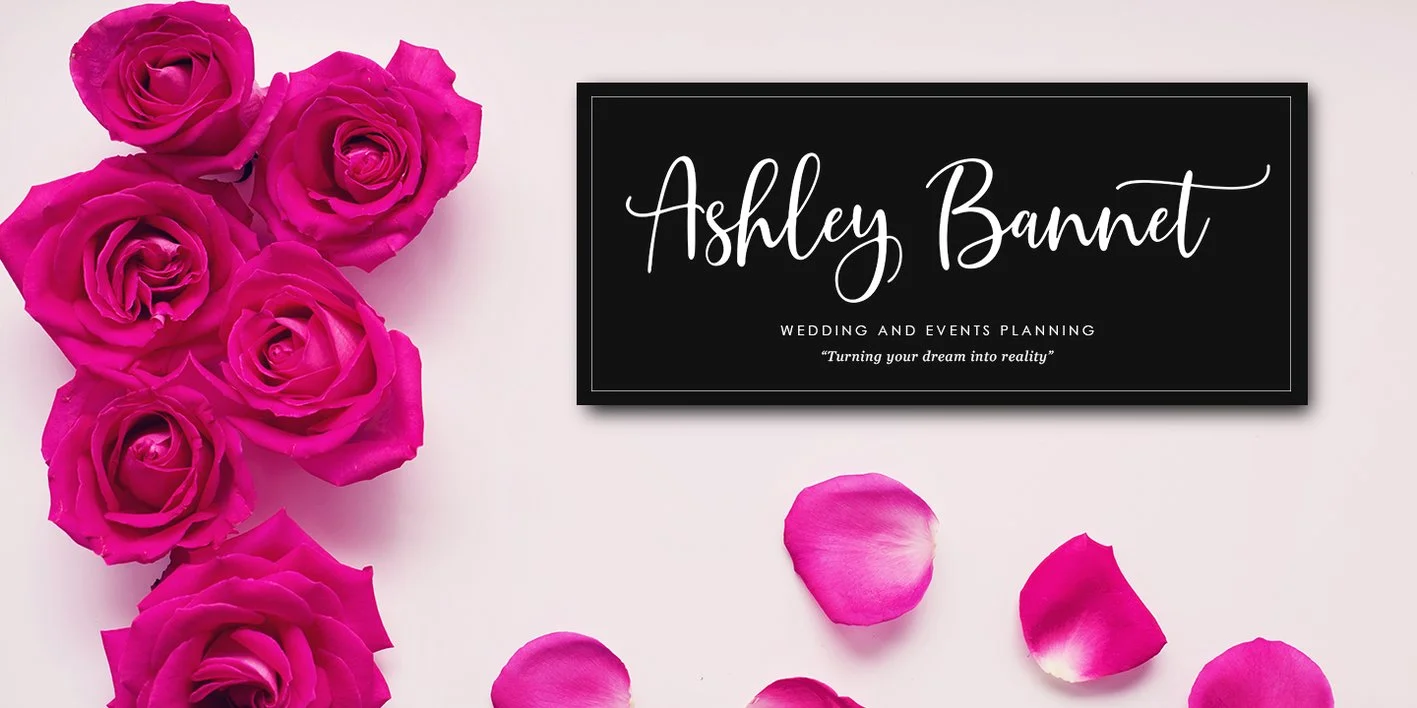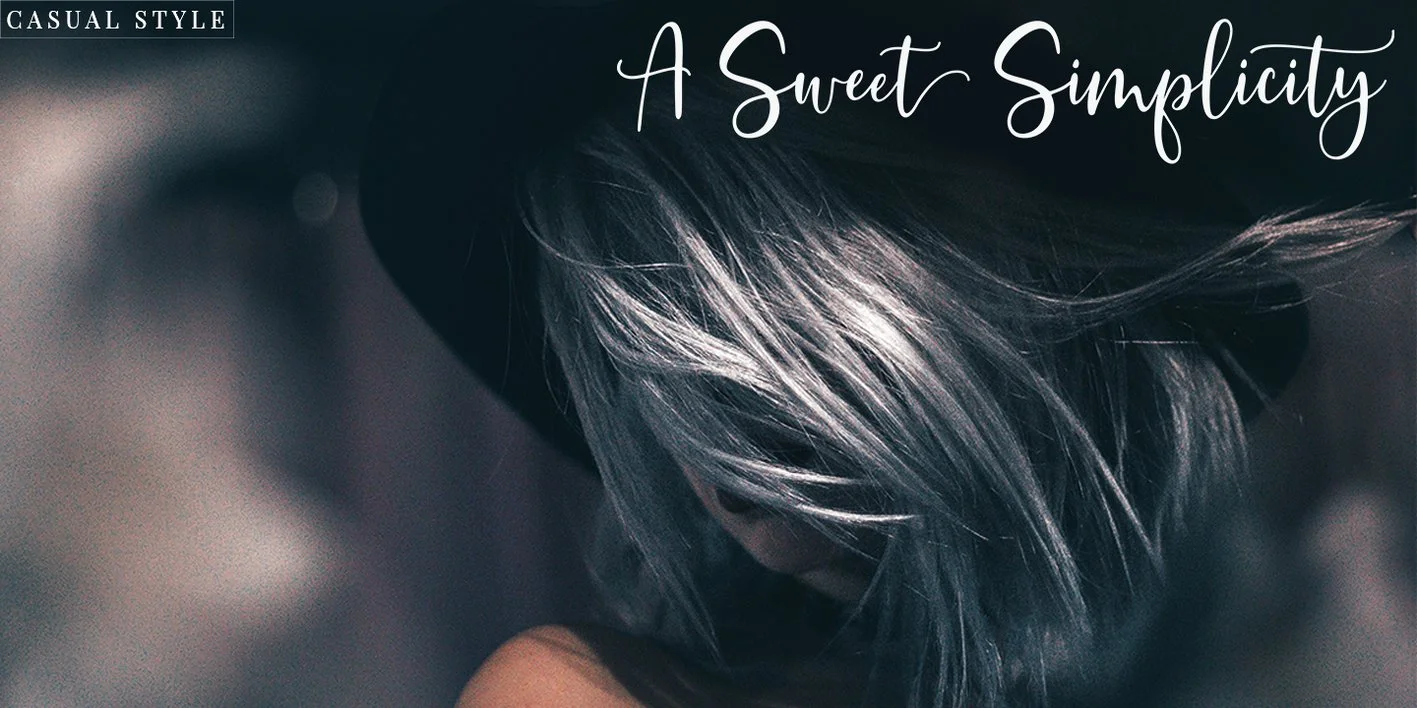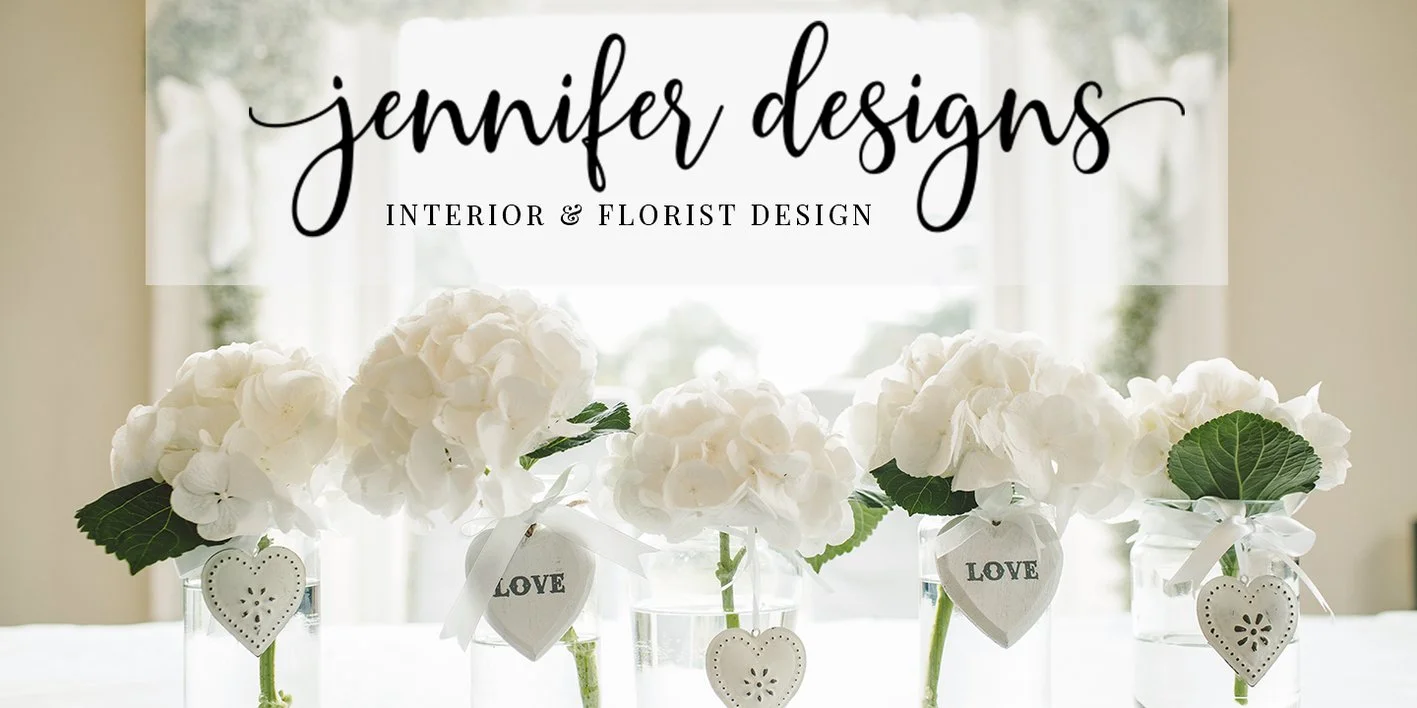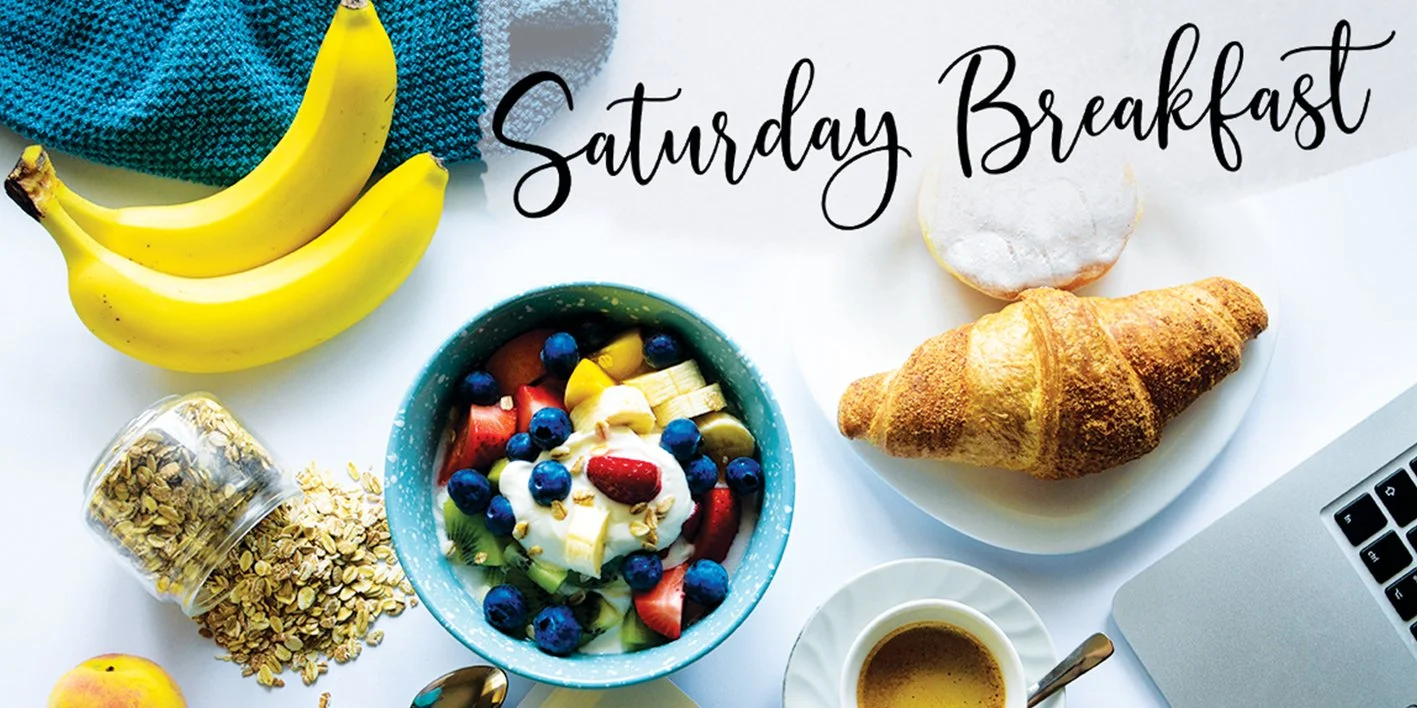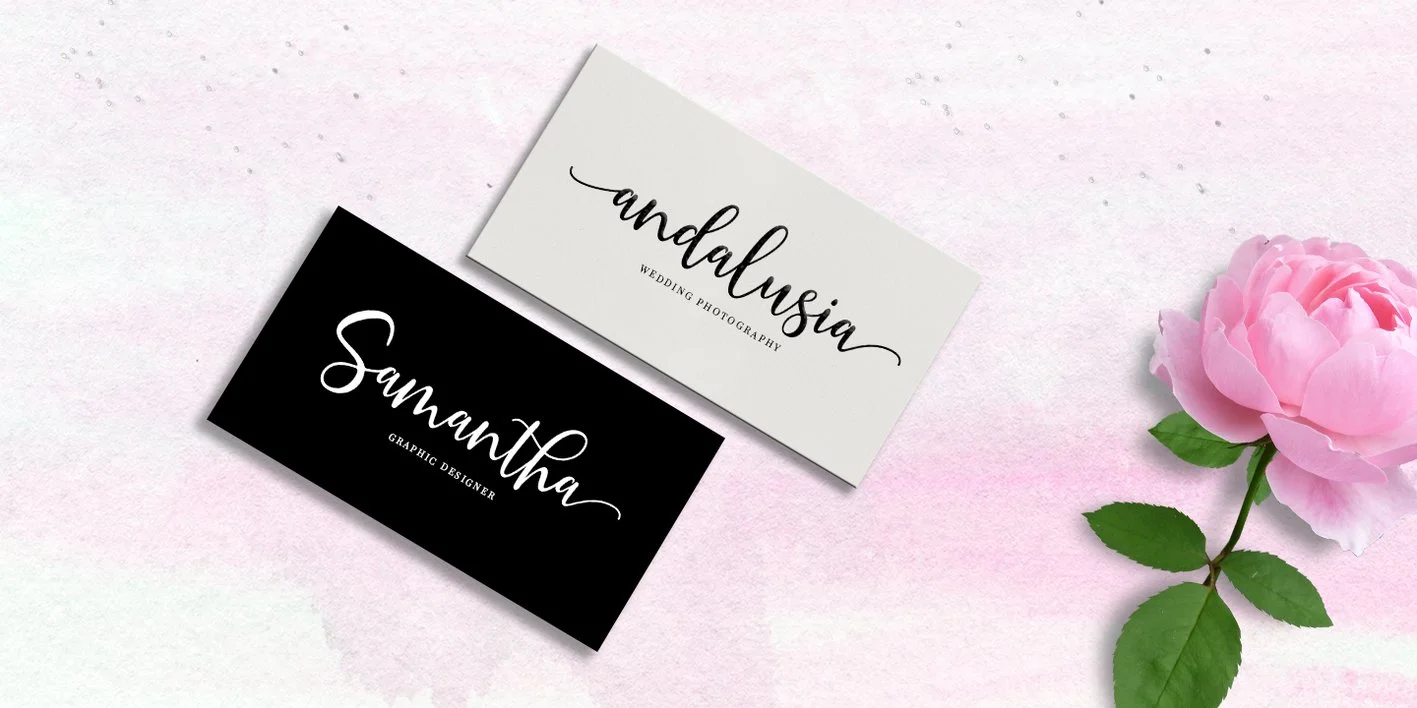
Angel Heart Font
Few typefaces manage to balance consistent type colour across continuous text with genuine day-to-day practicality. Angel Heart is one of them. The typeface brings a versatile sensibility to a broad range of creative disciplines, with visual harmony and precise spacing that holds up whether the work is print-first or screen-first.
In practice, Angel Heart proves particularly effective for editorial layouts, web design, product labels, packaging design, poster creation. Designers reaching for it find that the type decisions feel resolved rather than laboured — a useful quality when client timelines are tight.
The range of applications extends to brand identity systems, logo design, advertising campaigns, annual reports. That breadth is deliberate: the proportions and spacing were stress-tested across a wide range of mock briefs before the typeface was finalised.
Spacing and kerning pairs have been individually reviewed for the most common letter combinations in English and major European languages. The result is even type colour across continuous text, with no awkward gaps or collisions between adjacent characters.
The consistent rhythm of Angel Heart across a full paragraph creates the kind of even grey value that makes extended reading comfortable, a detail that matters more in long-form content than its subtlety might suggest.
Independent studios handling packaging and editorial work find Angel Heart a reliable choice for projects that demand both personality and restraint. The design avoids the self-conscious quirkiness that dates quickly, settling instead for considered distinctiveness that holds up over time.